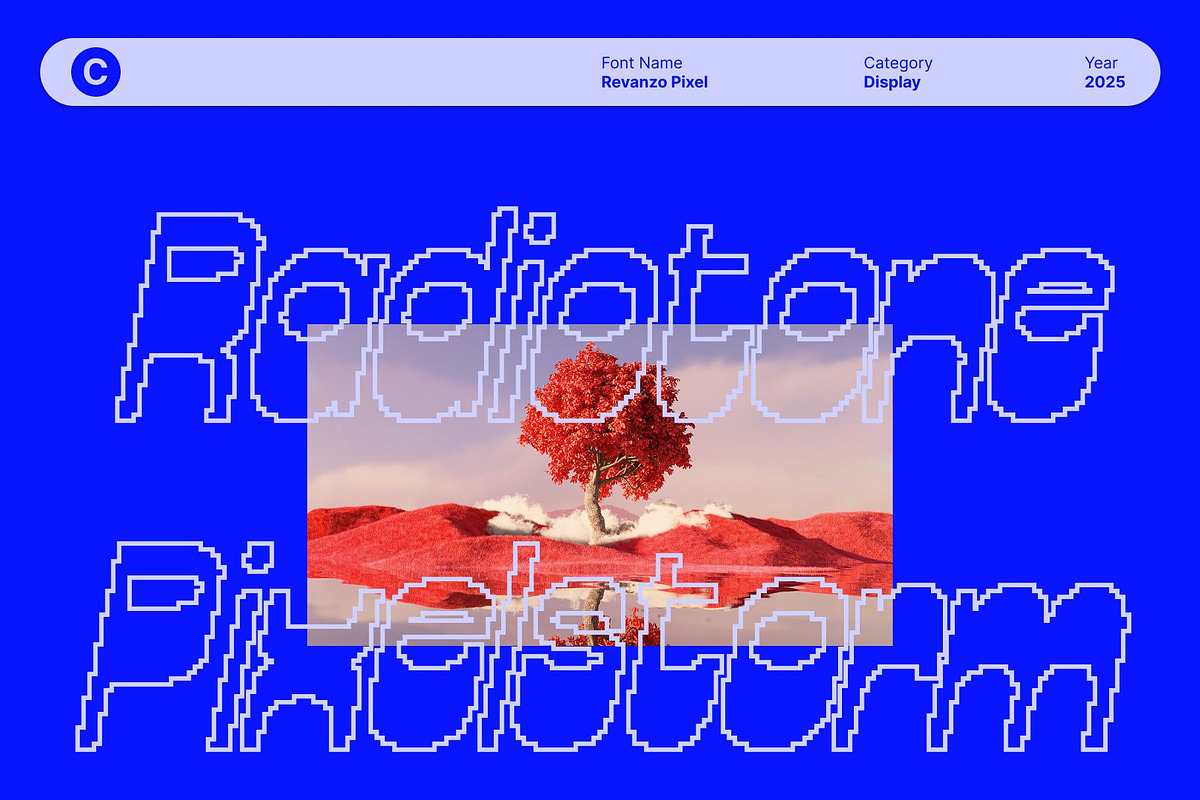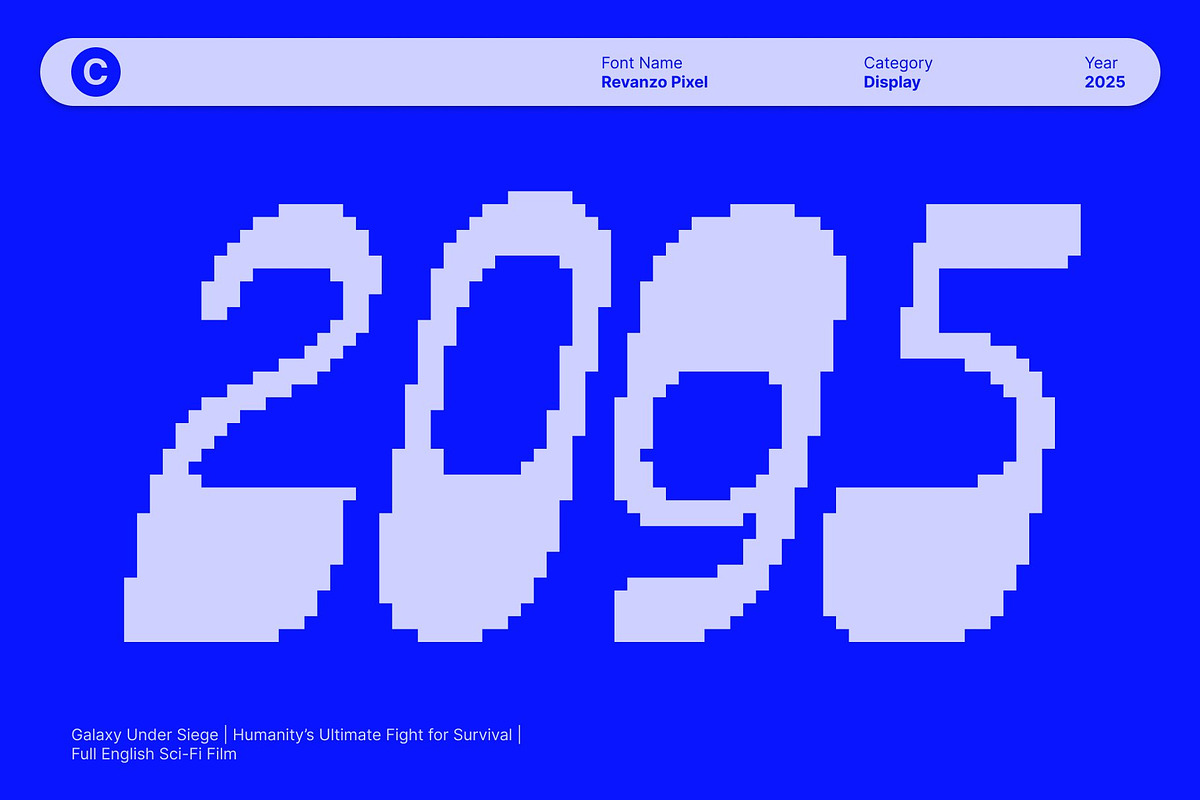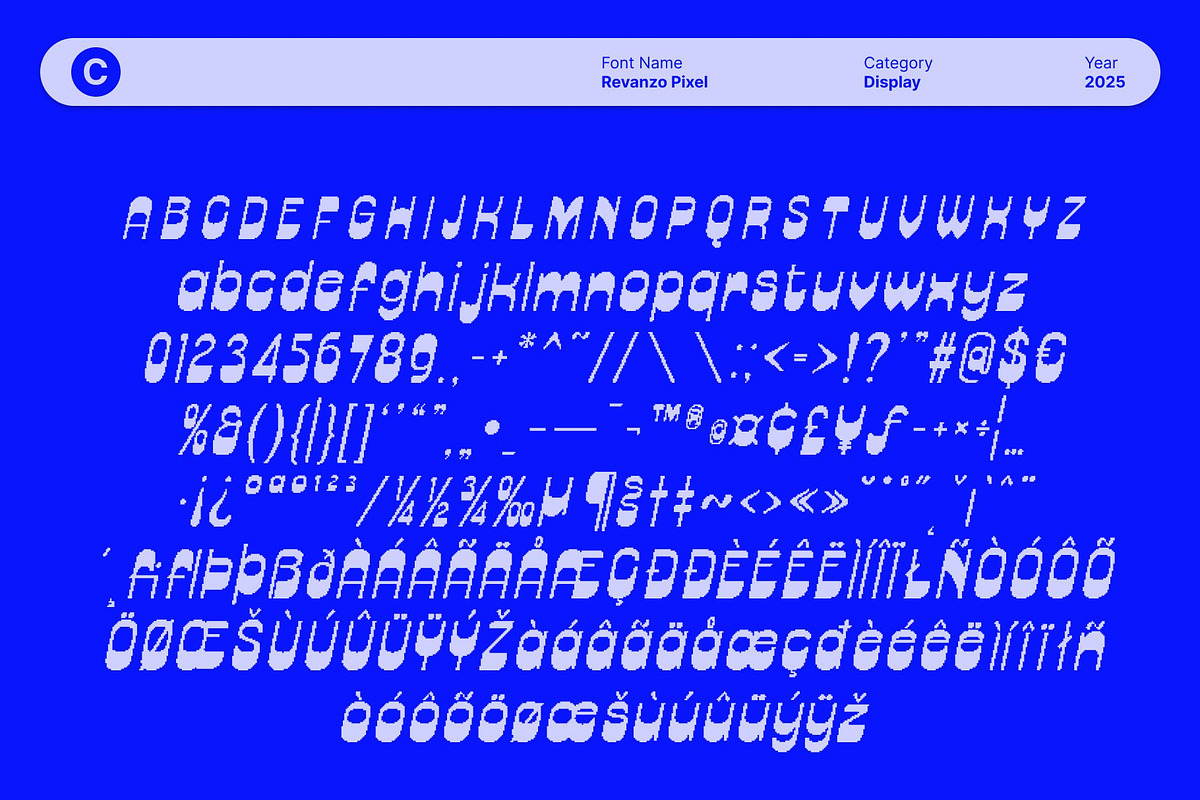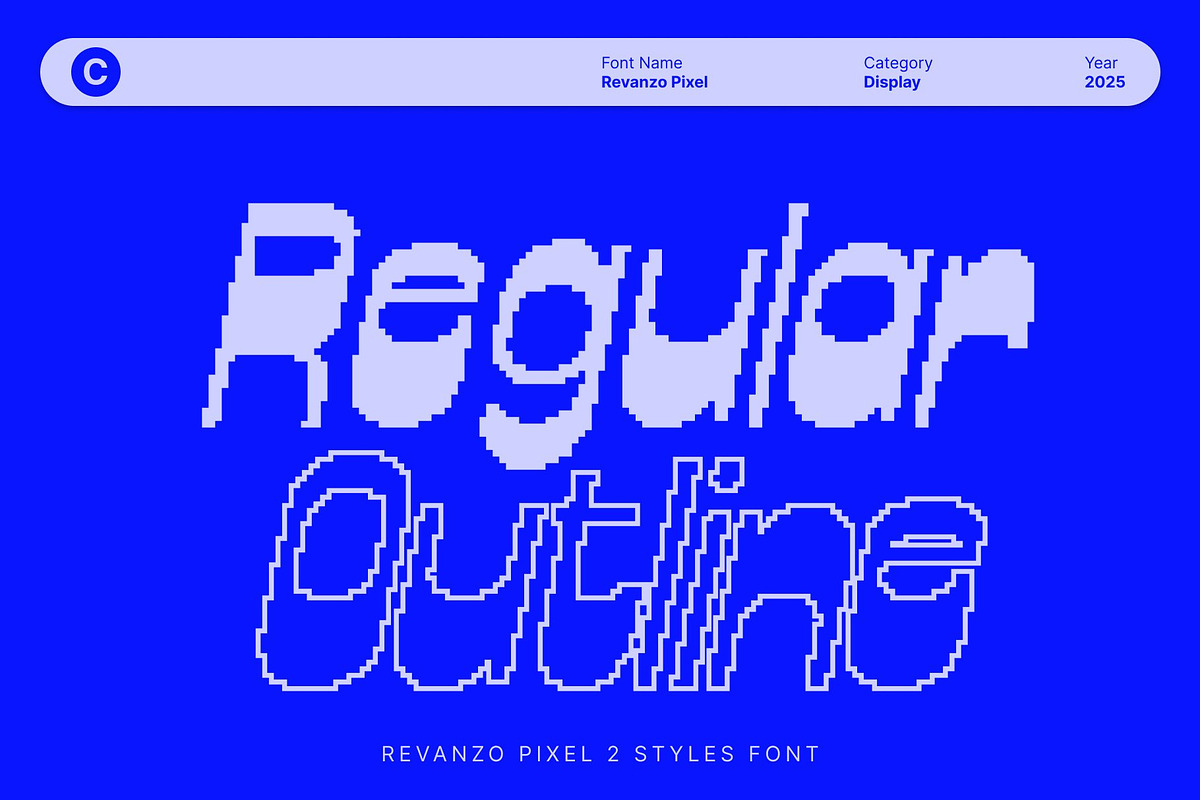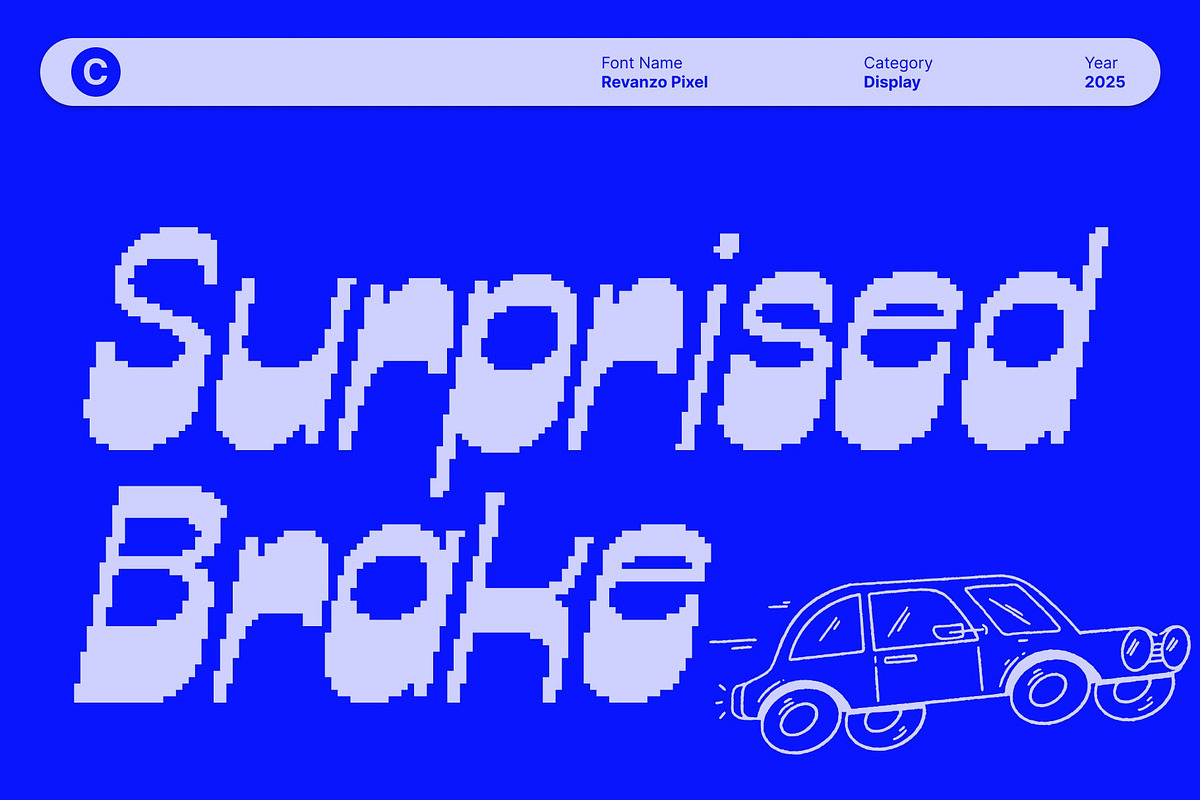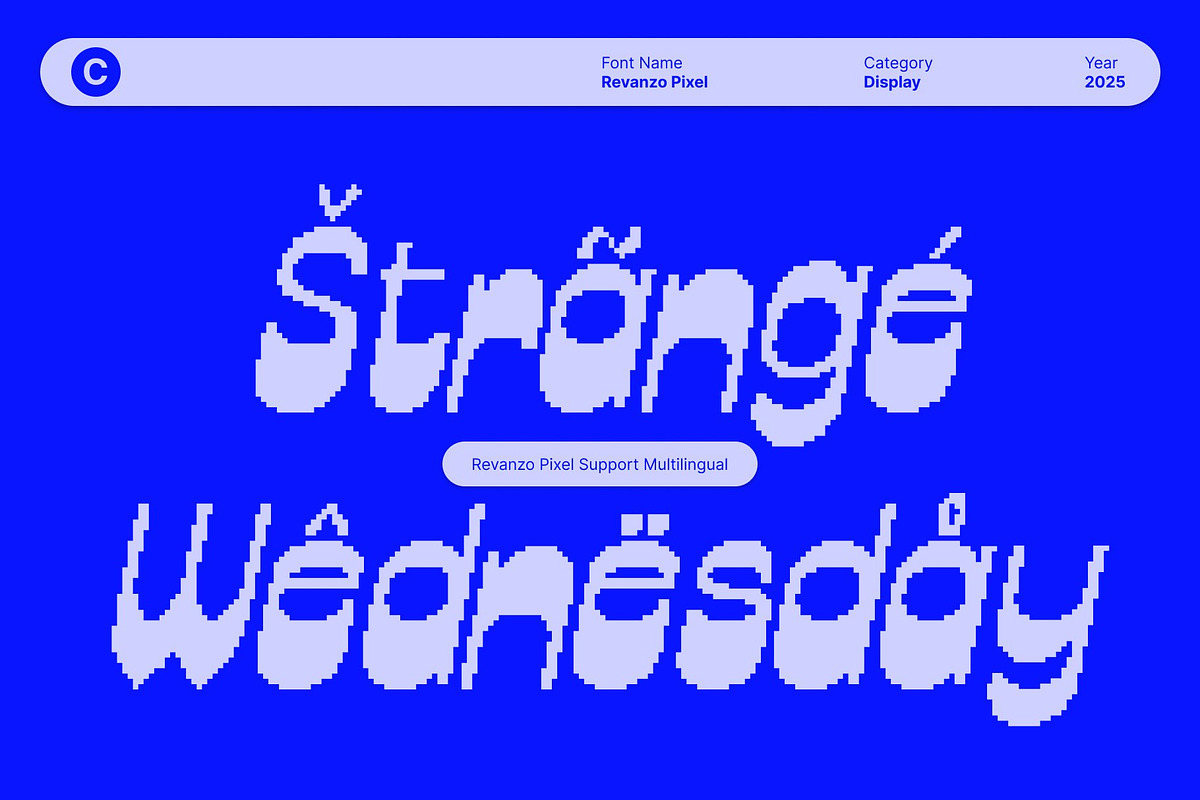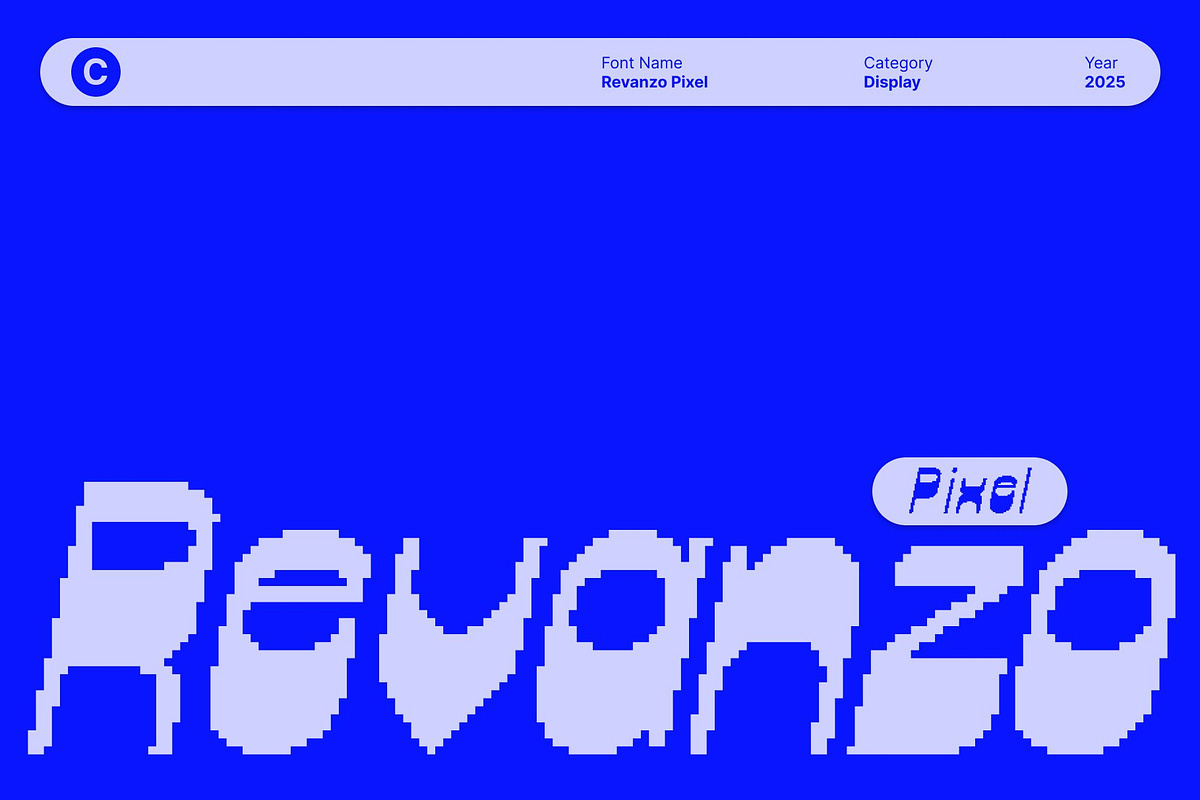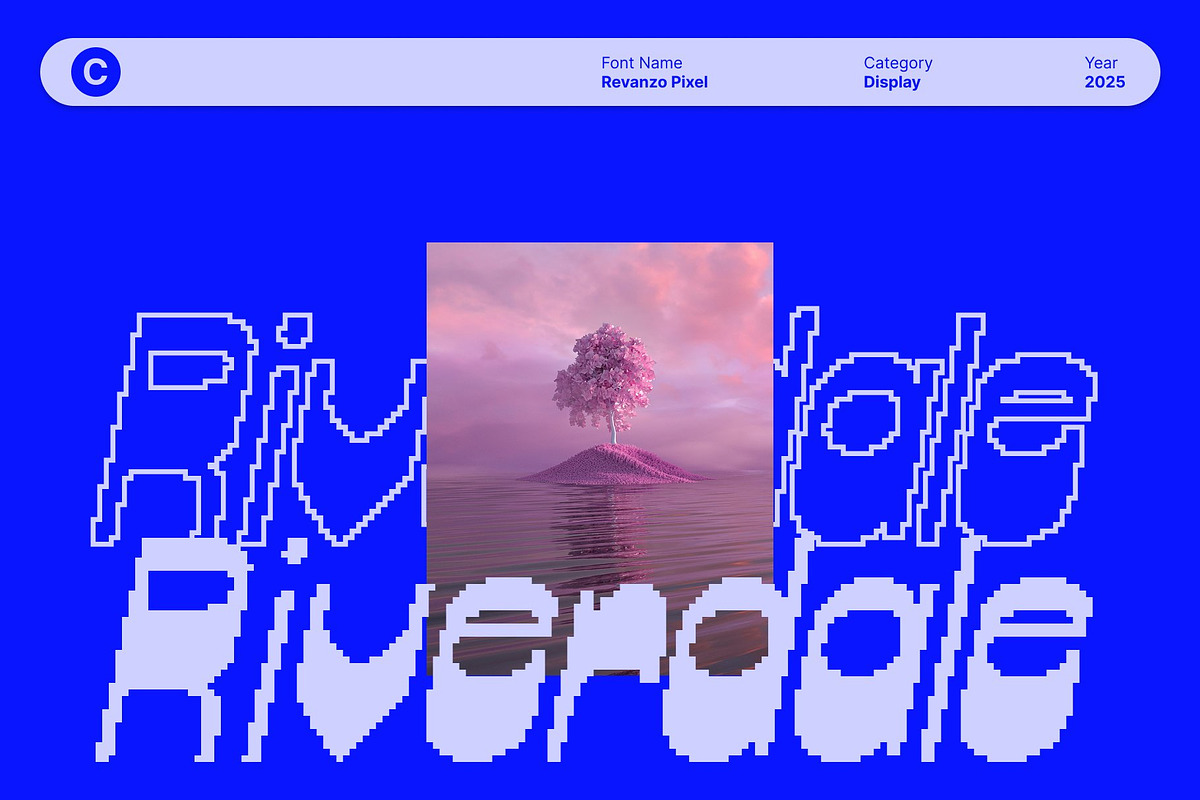
Revanzo Pixel
Revanzo Pixel – Reverse Contrast Pixel Display Font with Retro Attitude
Retro Pixel Aesthetic with a Bold Twist This is a reverse contrast pixel display font that brings the spirit of the 8-bit arcade era into modern design. Its playful yet unconventional letterforms create a nostalgic visual rhythm, capturing the funky and energetic mood of vintage game graphics. With thick horizontal strokes and pixel-sharp detailing, this typeface stands out instantly in any creative composition.
Reverse Contrast for Distinctive Character Experience an unexpected twist through this font’s reverse contrast structure, where the usual weight distribution is flipped to create striking visual tension. This unique approach enhances the font’s quirky personality while maintaining clear readability. The reversed weight adds depth, rhythm, and a bold retro flair, making it perfect for designers who want something truly eye-catching.
Pixel Craftsmanship with Nostalgic Charm Inspired by the classic aesthetics of old-school screens, this font embraces crisp pixel geometry and vintage video-game vibes. Every character feels intentionally crafted, evoking memories of arcade titles, handheld consoles, and early computer graphics.
Perfect for Retro & Creative Display Use This font excels in fun titles, posters, merchandise, packaging, and retro-inspired branding. Its bold structure and pixel textures make it ideal for projects that demand playfulness, creativity, and a hint of nostalgia. Whether you’re designing game-themed visuals, funky event posters, or standout social media graphics, this display font ensures your message hits with style and attitude.
- Revanzo Pixel Regular
- Revanzo Pixel Outline